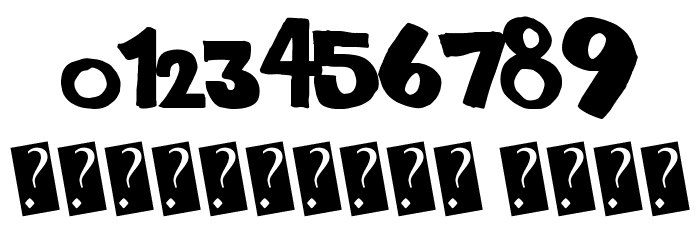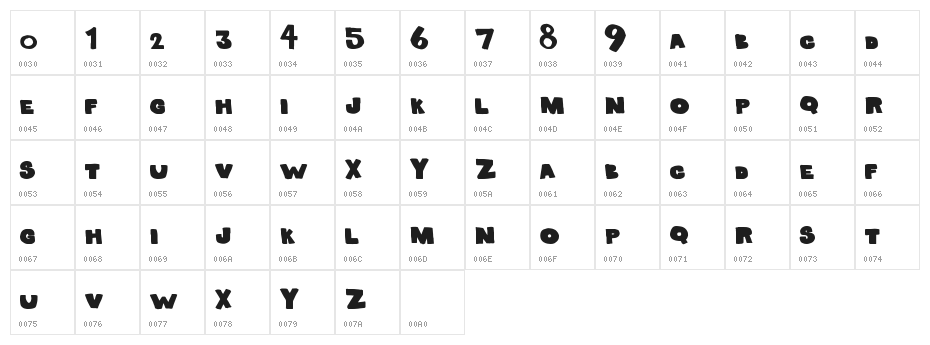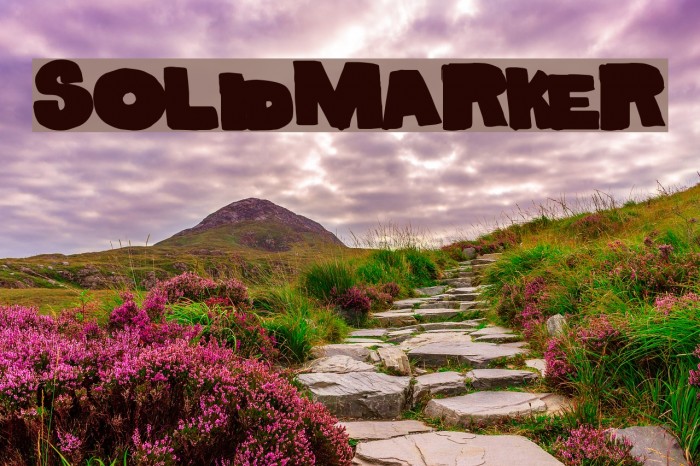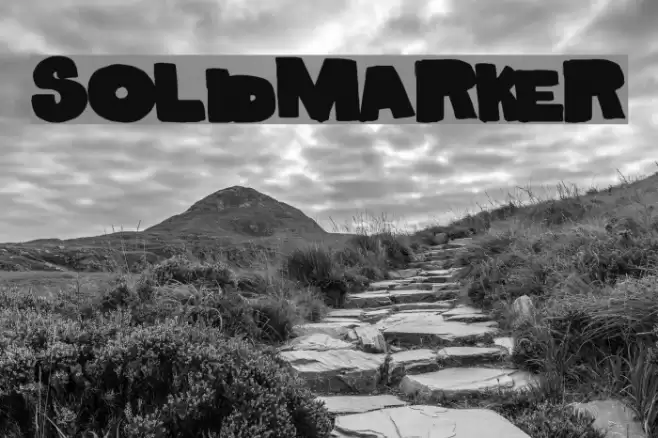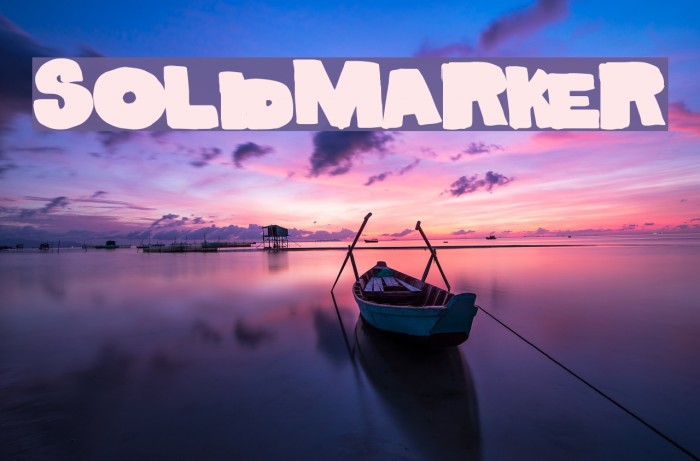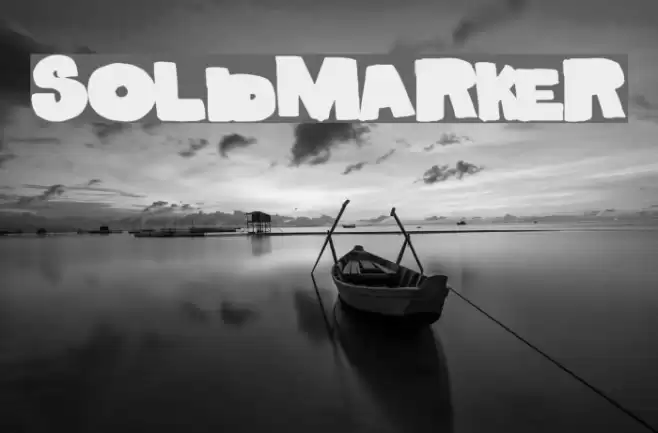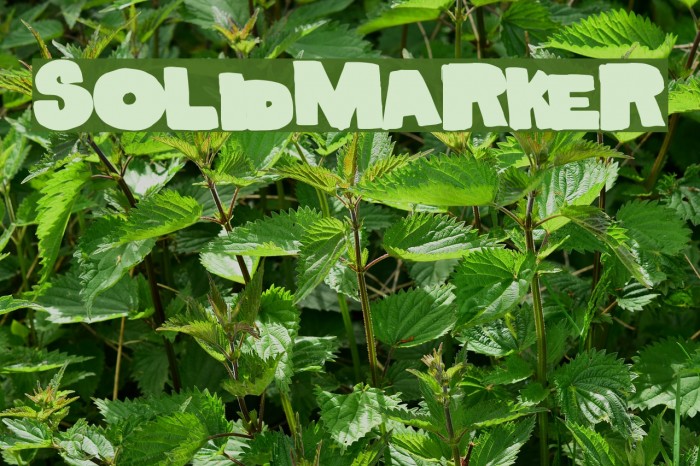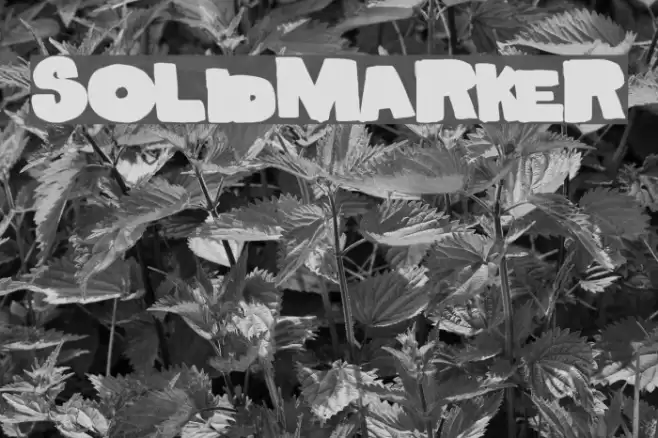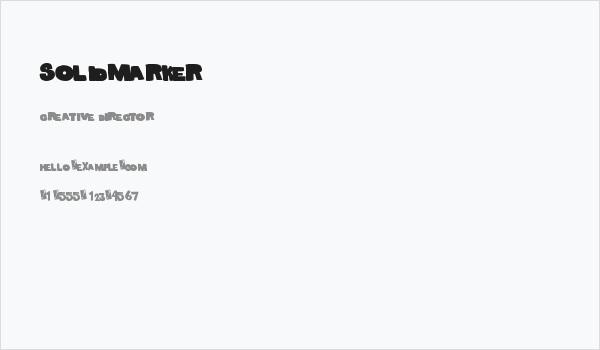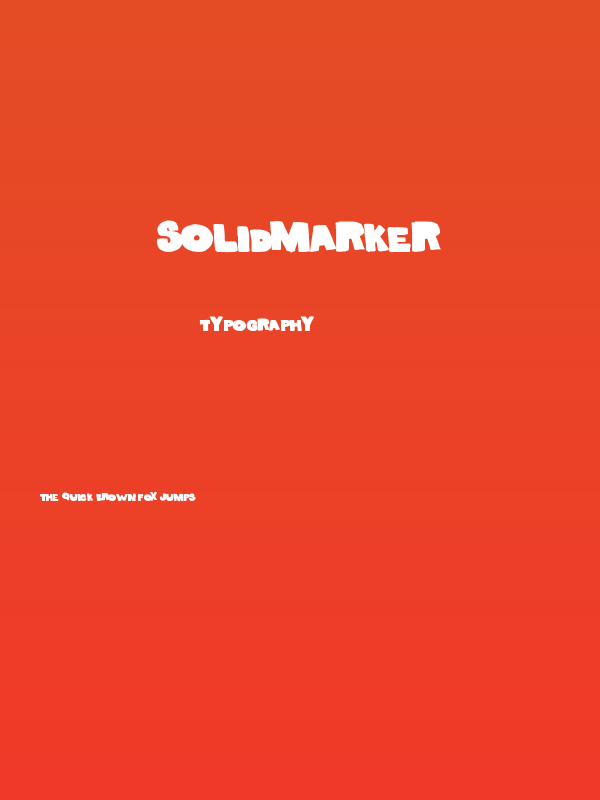
SolidMarker Font
SolidMarker Description
This font features bold, rounded characters with a playful and dynamic appearance. The letters are thick and have a hand-drawn, marker-like quality, giving them a casual and informal feel. The strokes are consistent in weight, creating a uniform look across all characters. The font is highly legible and stands out due to its substantial presence and unique style. It is suitable for designs that require a fun and engaging typeface, such as children's books, posters, or creative branding projects. The numbers and special characters maintain the same bold and rounded style, ensuring consistency throughout any text.
| Overall Style | Playful, Casual |
| Proposed Projects | Ideal for children's books, posters, creative branding, and playful designs. |